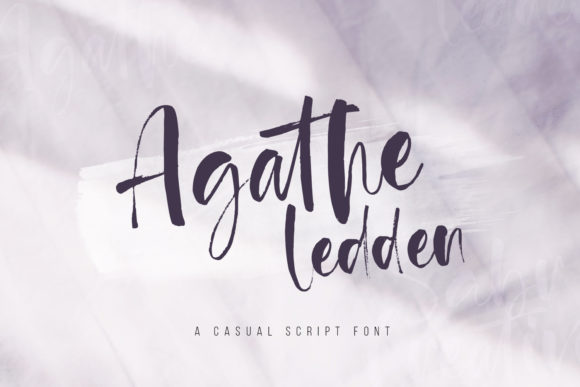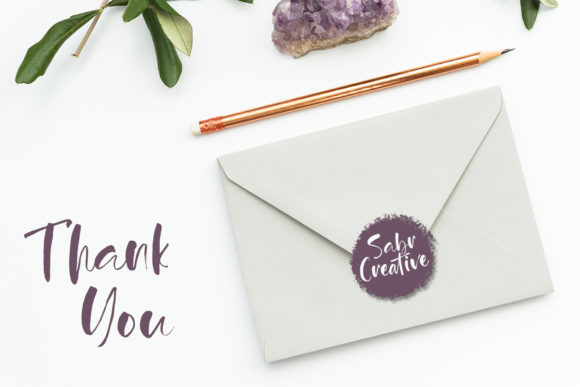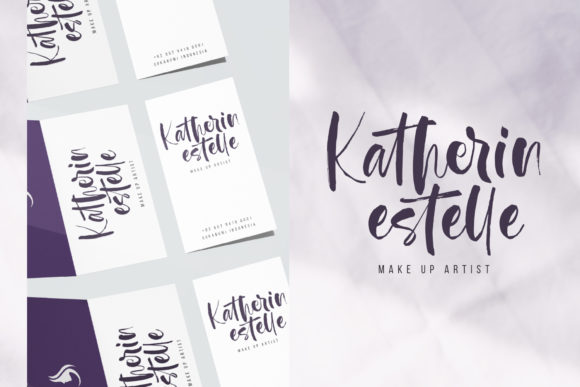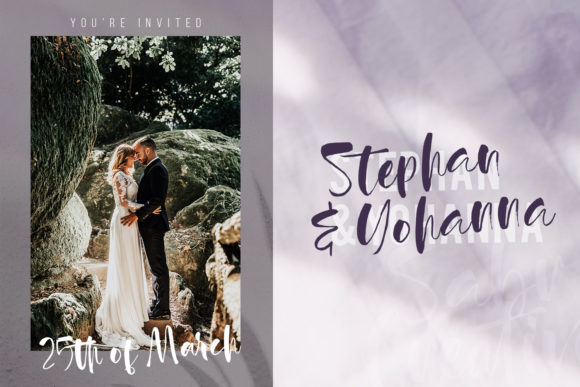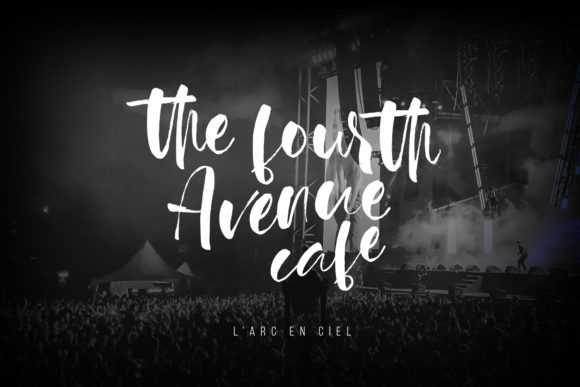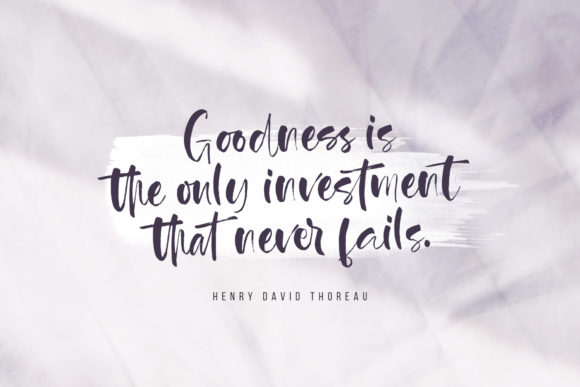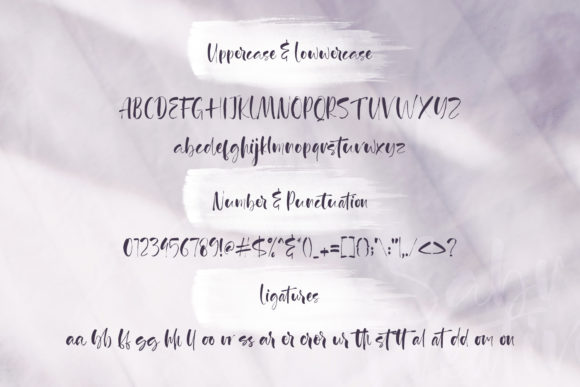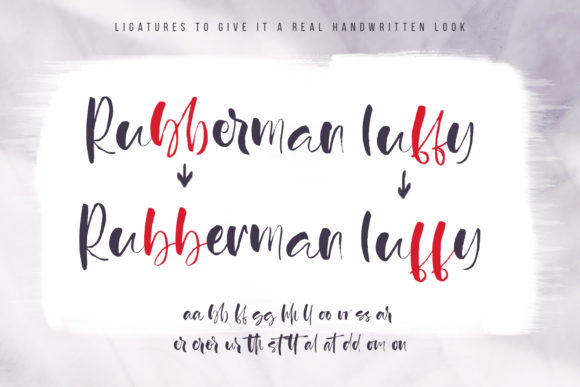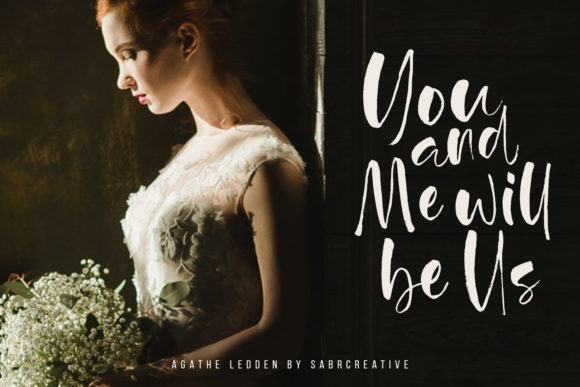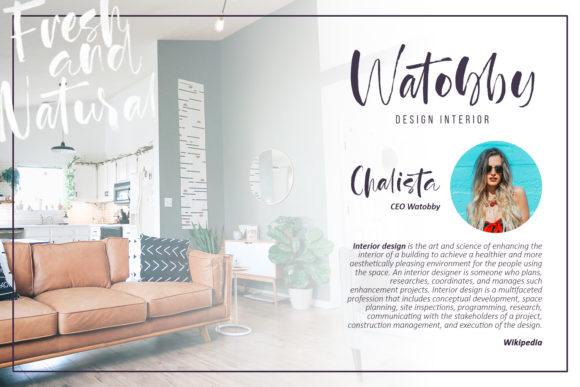
Agathe Ledden Font
About Agathe Ledden Font
Agathe Ledden is a lighthearted and charming script with a down-to-earth feel. Ignite your creativity with this one-of-a-kind calligraphy font!